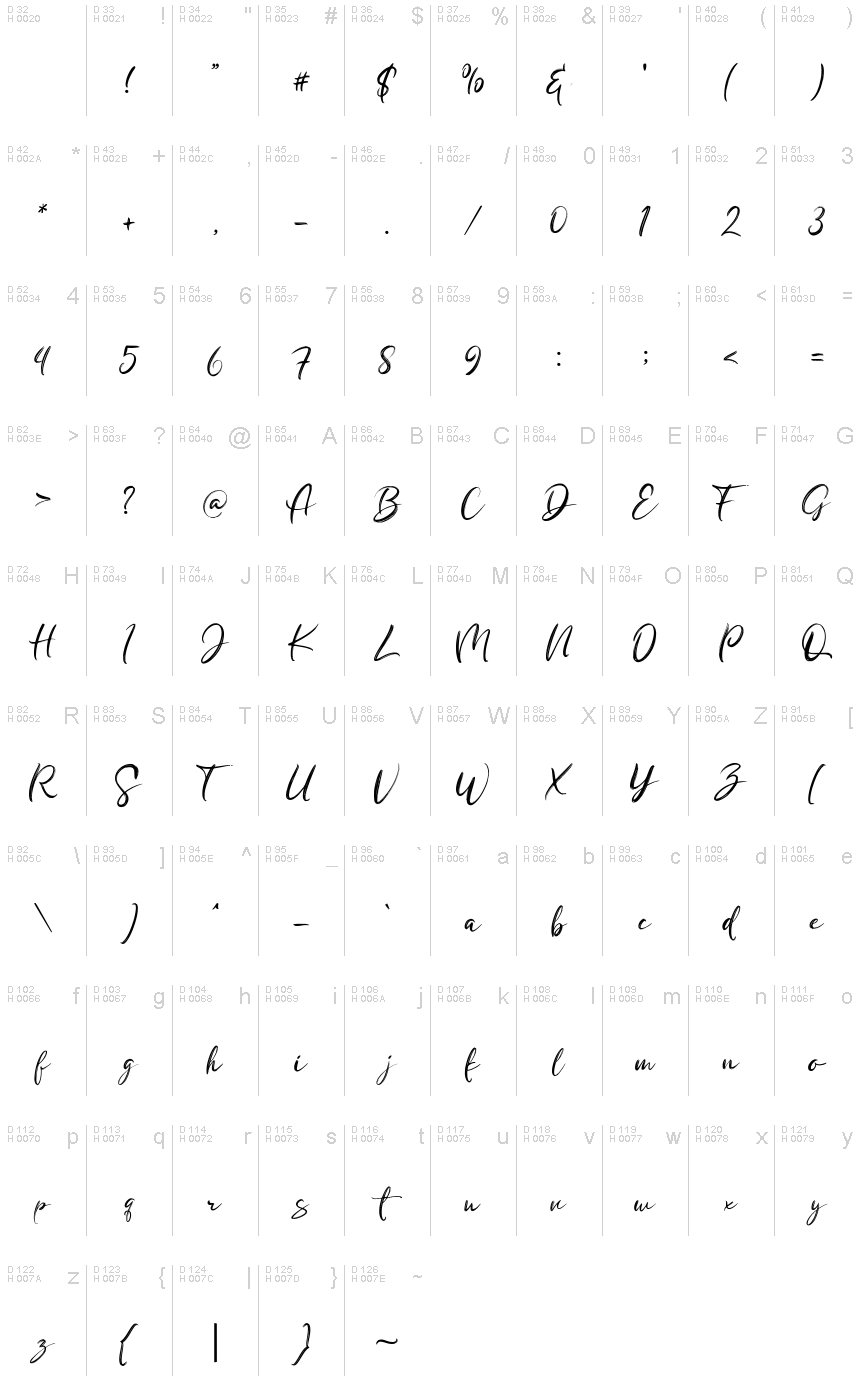
Bostonbrush
Boston Brush, crafted by Basni.std, brings the fluidity and expressiveness of brush strokes to digital typography. This brush-style font boasts an aesthetic that merges the spontaneity of hand-painted lettering with the precision of modern design. Each character is imbued with dynamic energy, making Boston Brush ideal for projects that require a touch of personality and flair.
With its sweeping curves and varying line weights, Boston Brush provides a sense of authenticity and emotion often sought after in branding, advertising, and creative media. The font's versatile nature allows it to fit seamlessly into diverse design landscapes-from edgy music album covers to artisanal product packaging. Embrace the distinctive charm of Boston Brush to elevate your creative endeavors with its stylish elegance and artistic appeal.